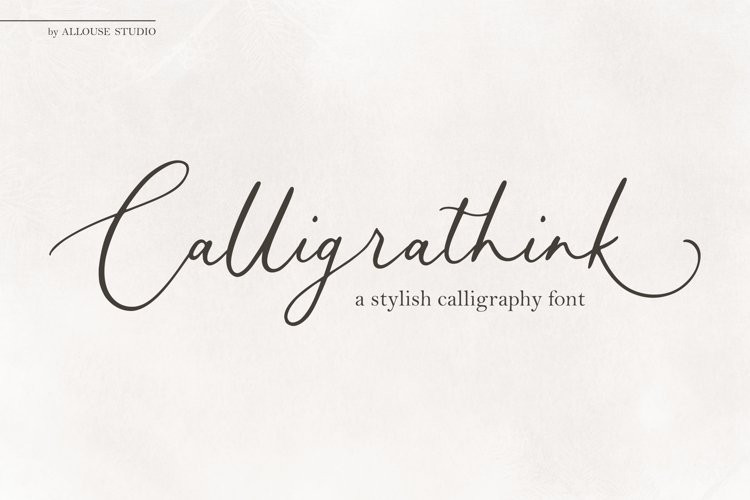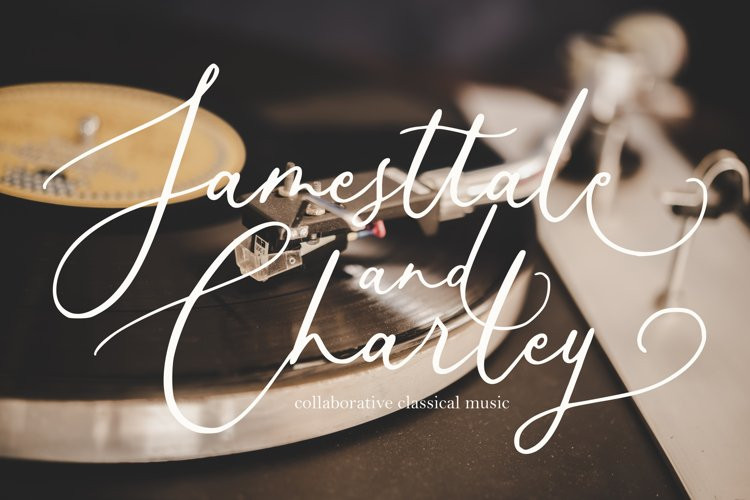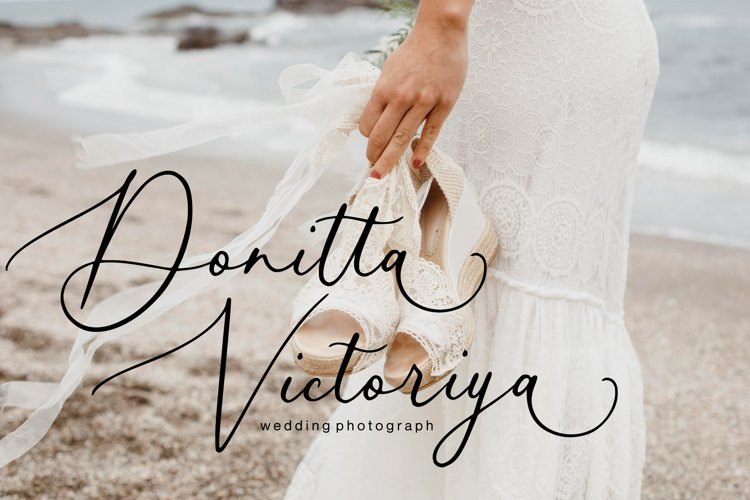
Calligrathink Font
Calligrathink FontCalligrathink is A Stylish Calligraphy Font
Calligrathink is perfect for product packaging, branding project, megazine, social media, wedding, or just used to express words above the background.